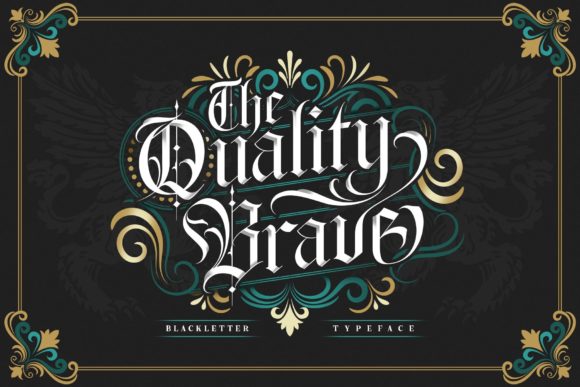
Introducing The Quality Brave Font - the perfect choice for anyone seeking the best font for a text tattoo! This captivating blackletter font, created by the talented Alit Design, will elevate your designs and leave a lasting impression on your audience.
With its stylish and highly detailed design, The Quality Brave Font is guaranteed to grab attention and make a statement. Its unique blackletter style adds a touch of elegance and sophistication to any project, making it ideal for labels, branding, logos, and more.
What sets this font apart is its versatility and flexibility. Whether you're aiming for a bold and edgy look or a more refined and classic style, The Quality Brave Font delivers. It seamlessly adapts to different design themes, allowing you to unleash your creativity and create stunning visuals that captivate your audience.
But that's not all - this font is also incredibly user-friendly. Thanks to its PUA encoding, accessing all the glyphs and swashes is a breeze. This means you can effortlessly customize and personalize your designs, adding intricate details and flourishes that truly make them one-of-a-kind.
Imagine the impact of a text tattoo created using The Quality Brave Font. With its eye-catching and emotional appeal, it will become a powerful statement piece that resonates with your personality and values. Whether you want to express strength, bravery, or a sense of mystique, this font has you covered.